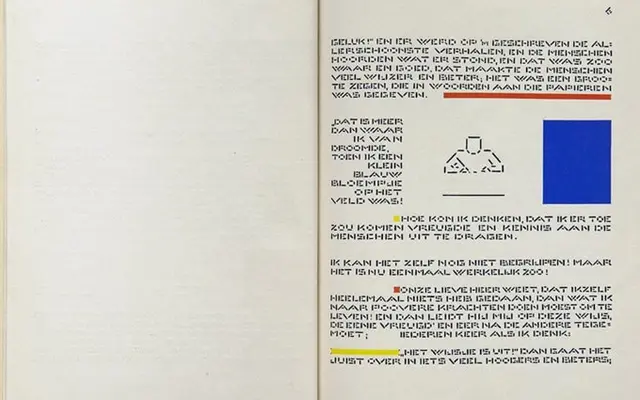
Architype Van der Leck
The Foundry Types · Bart Van der Leck
A typeface revival drawn from Bart Van der Leck's 1941 lettering for 'Het Vlas' magazine, capturing the stencil-like geometric rigour of De Stijl.
Part of The Foundry Types' Architype Konstrukt collection, this face recovers the abstract, angular letterforms Van der Leck produced for a 1941 Dutch flax publication. The restricted shapes echo De Stijl's hard geometric language and connect directly to his contemporaneous abstract paintings. Character sets are limited by design, reflecting the experimental nature of the source material.
Derived from De Stijl lettering with restricted, stencil-like geometric forms rooted in early 20th-century avant-garde art; classified as display due to its highly abstract and experimental character construction.